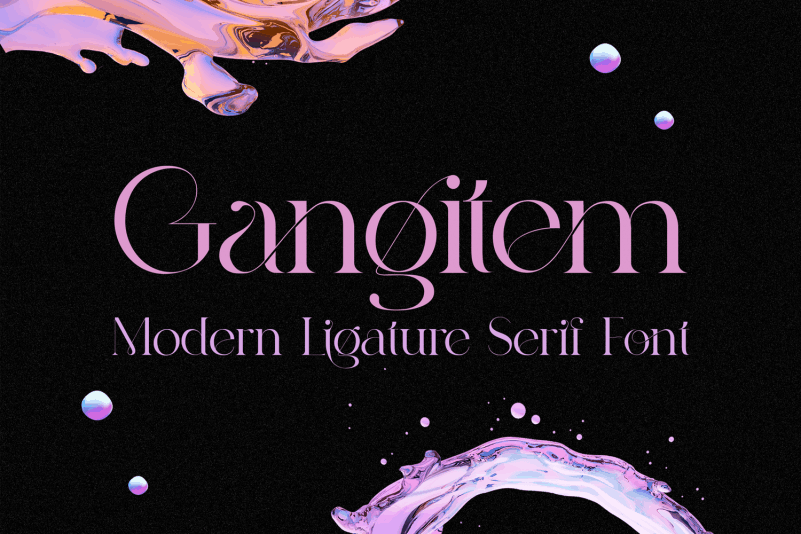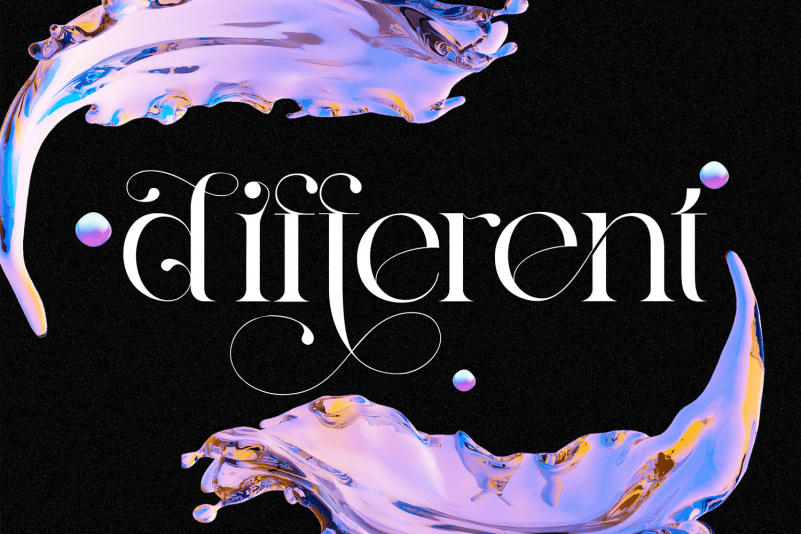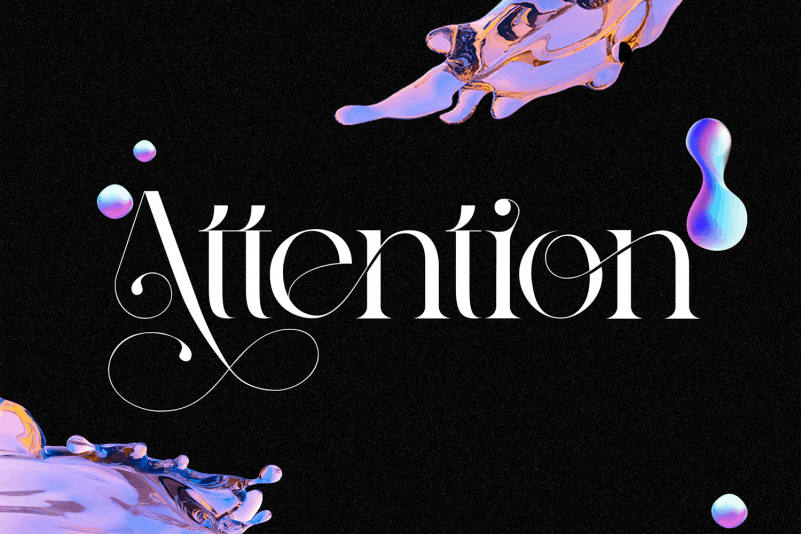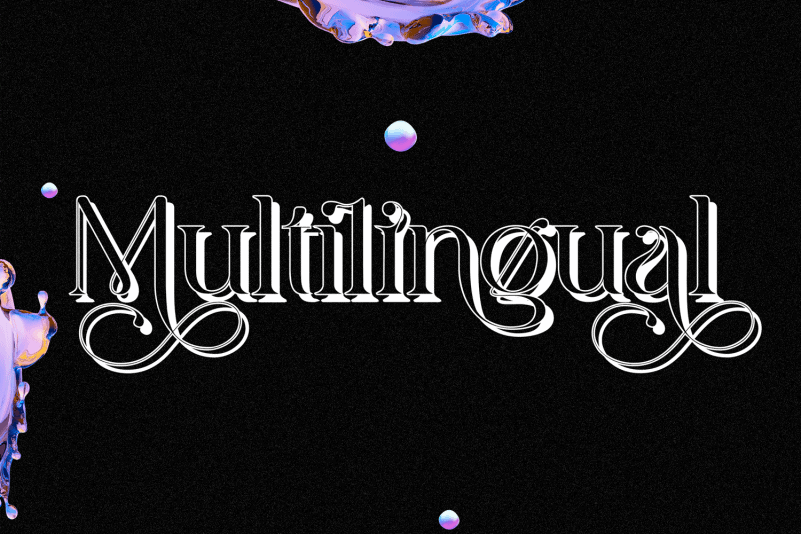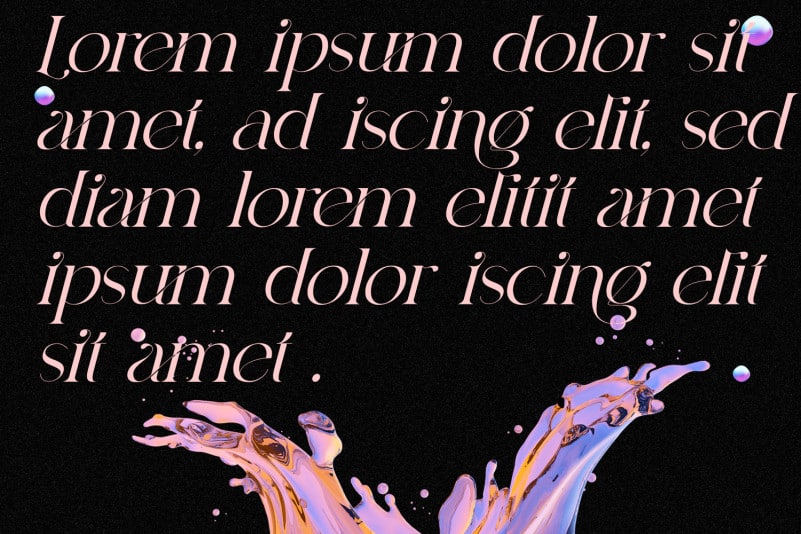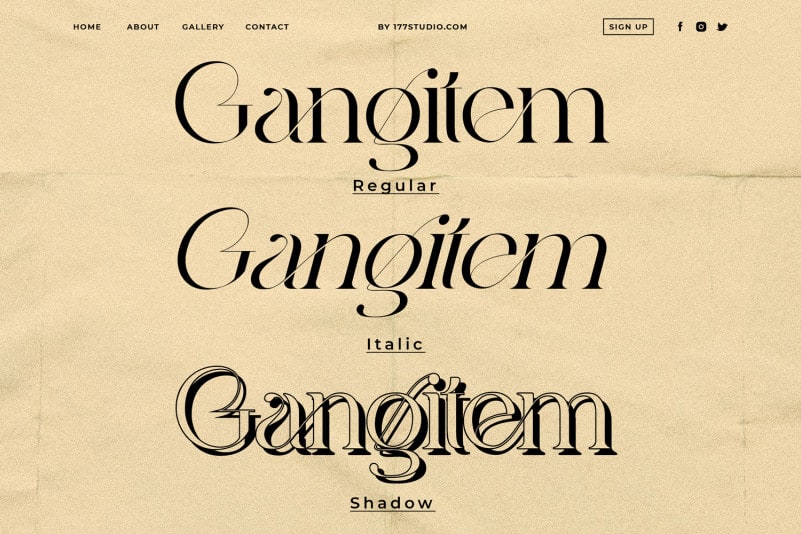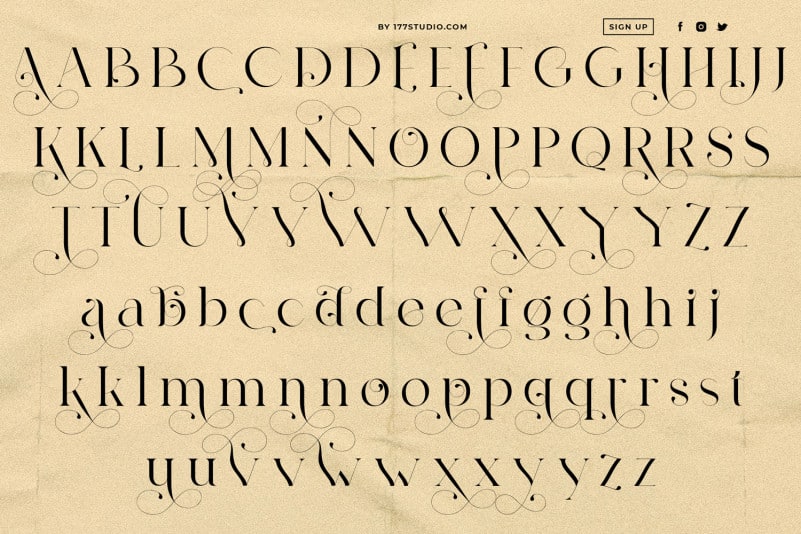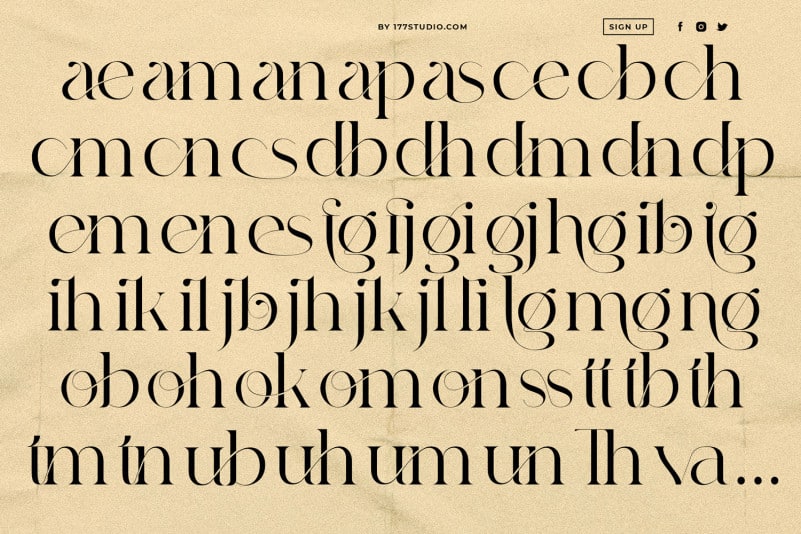
Gangitem Serif Font
Introducing Gangitem Font, a modern and elegant serif font. It’s equipped with a variety of discretionary ligatures to give you all you need for great typography. This font is both modern and nostalgic and works great for logos, mastheads and pull quotes. It pairs beautifully with a minimal sans serif or light script font.
To make it look more unique, here we prepared some ligatures:
ae am an ap as ce cb ch cm cn cs db dh dm dn dp em en es fg fj gi gj hg ib ig ih ik il jb jh jk jl li lg mg ng ob oh ok om on ss tt tb th tm tn ub uh um un Th…
Gangitem Serif Font